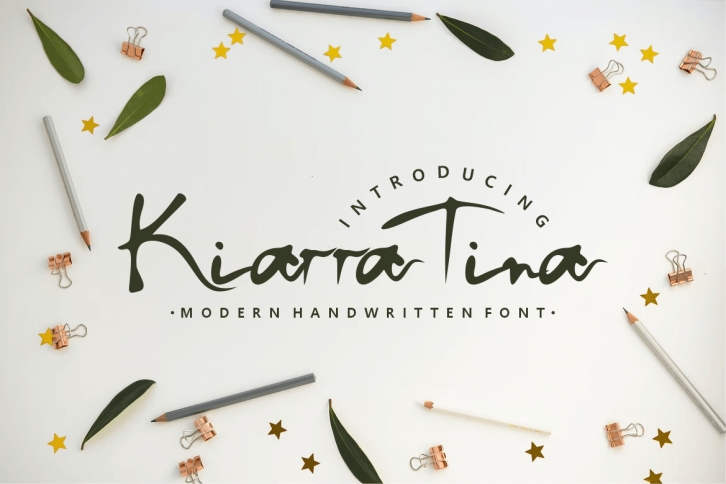
Kiarra Tina is a unique and elegant handwritten font. It looks beautiful on a variety of designs requiring a personalized style, such as wedding invitations, thank you cards, greeting cards, logos, and so on